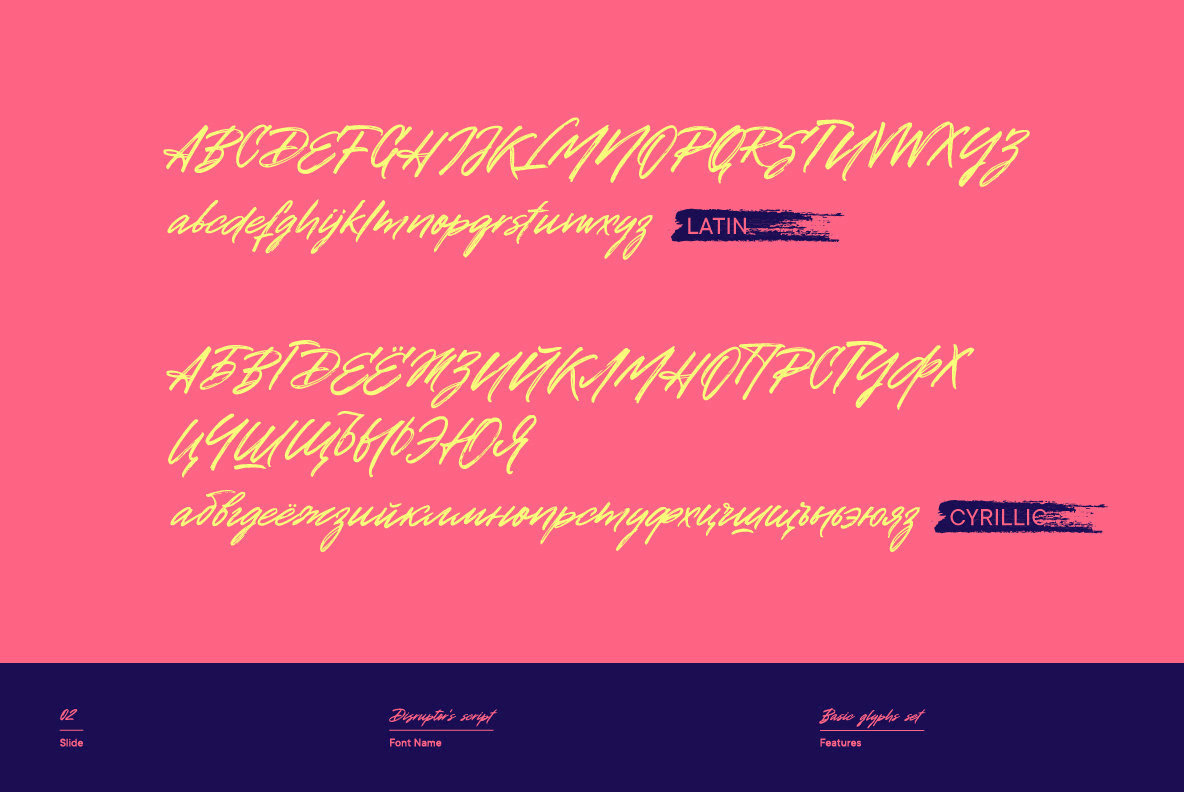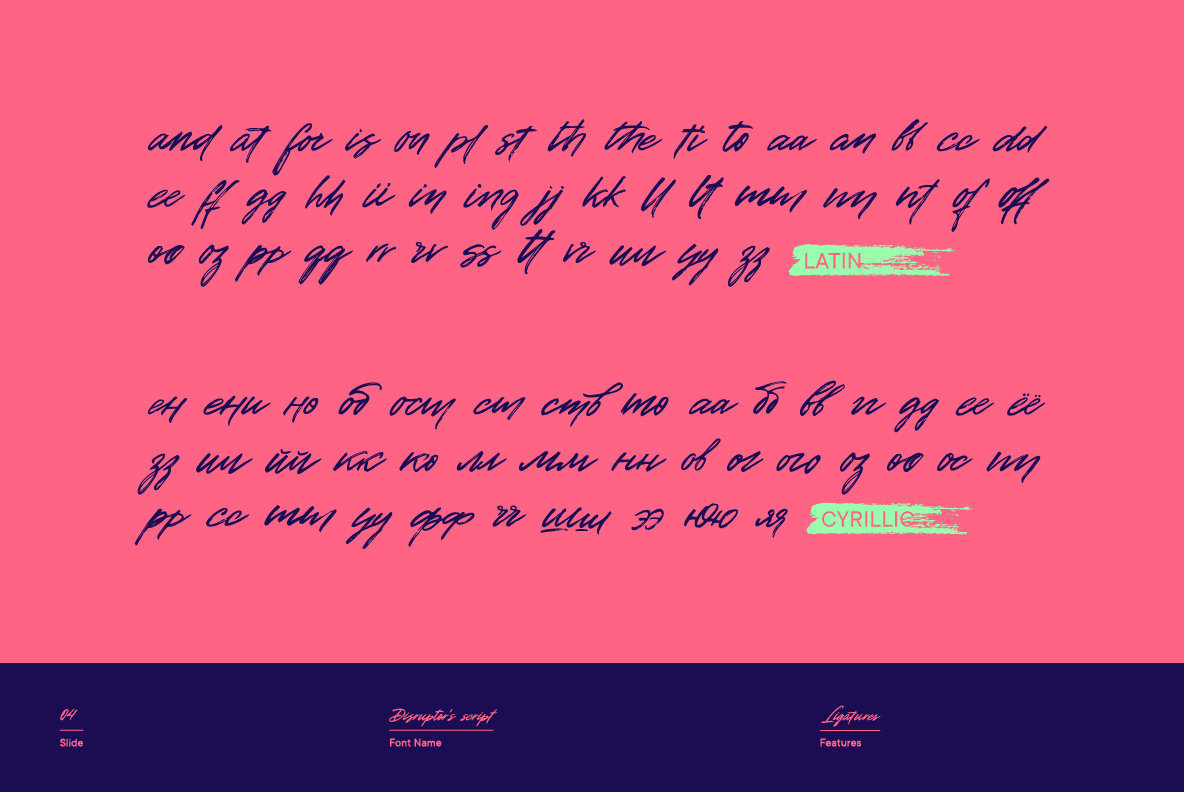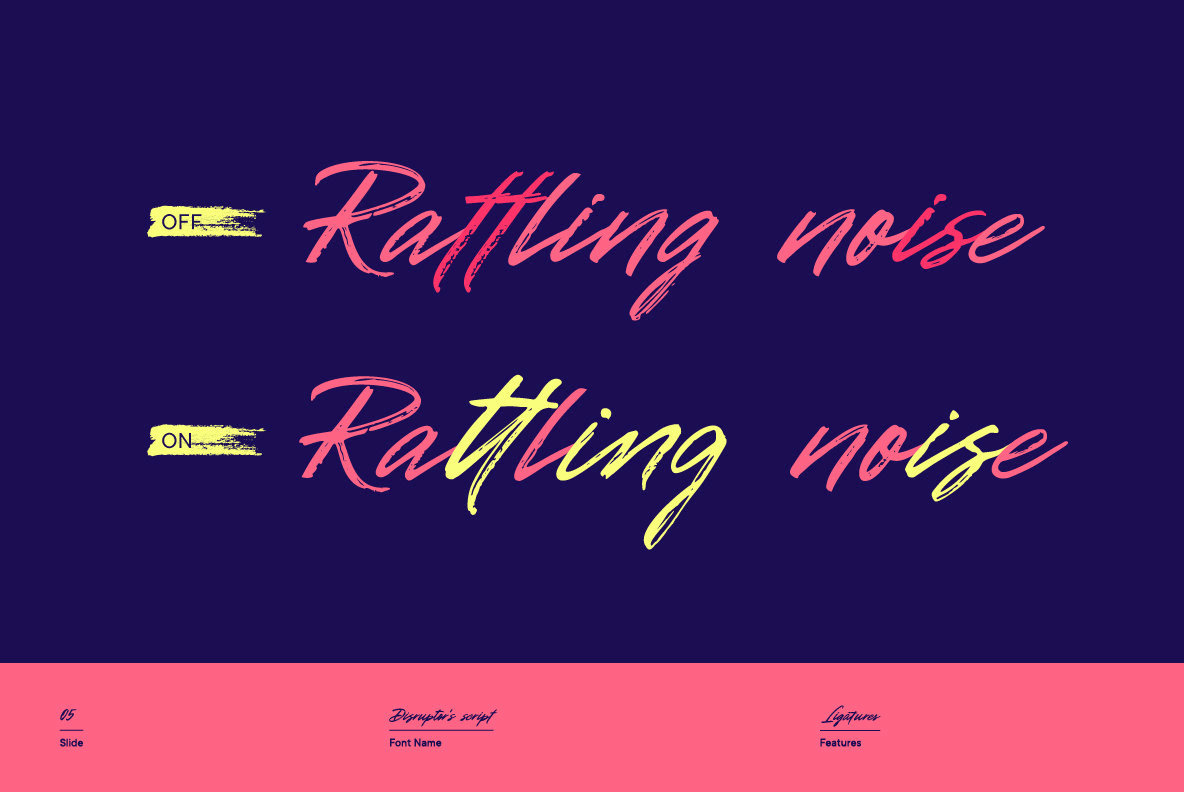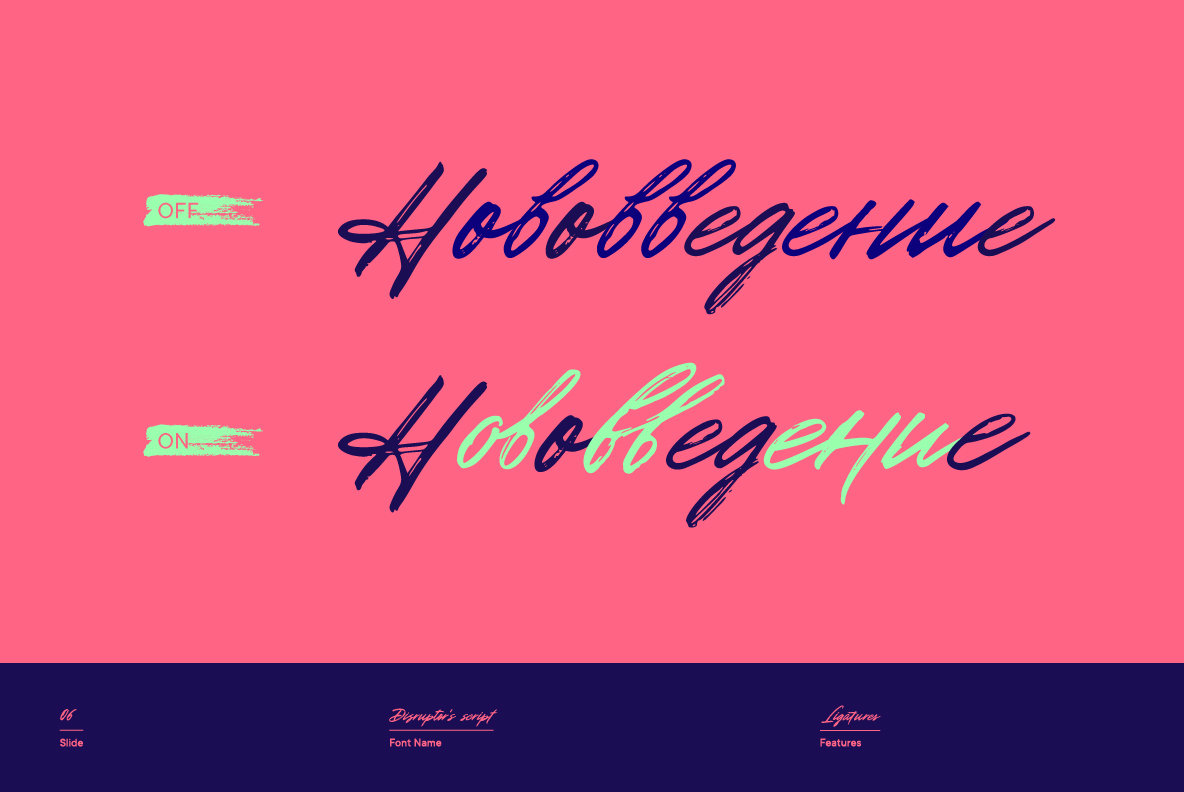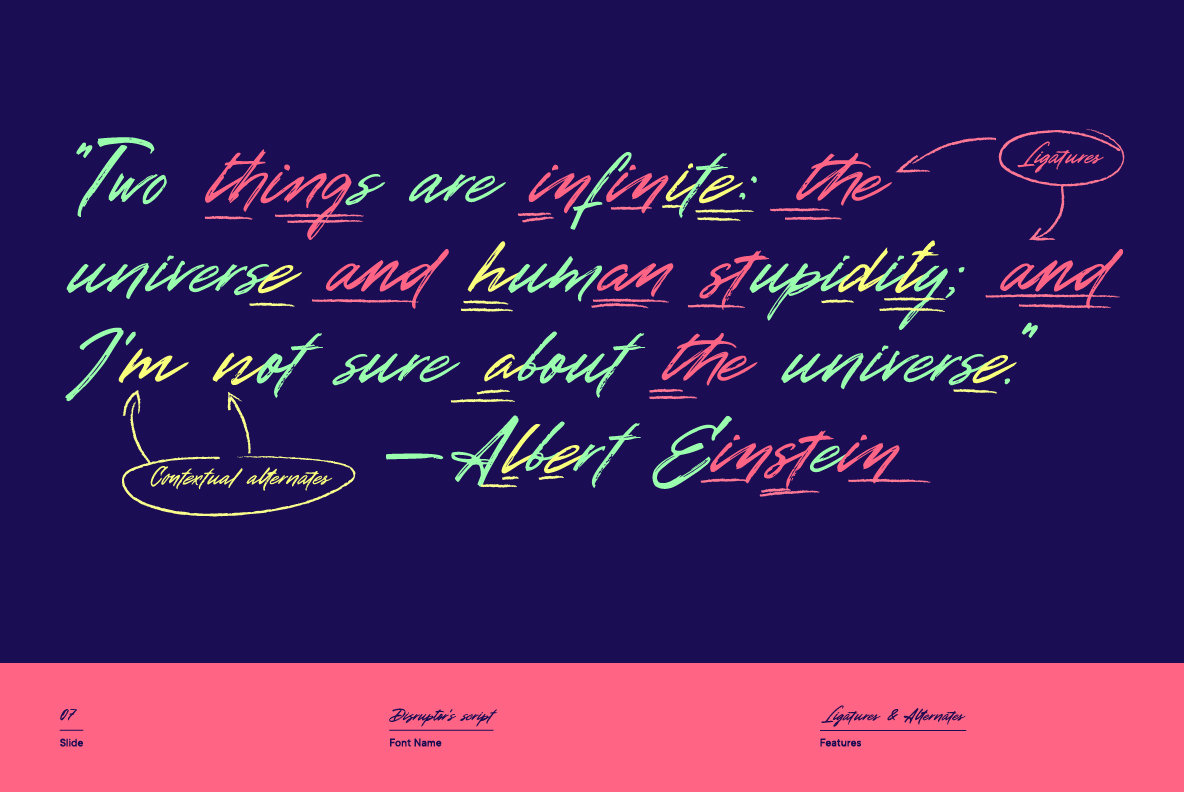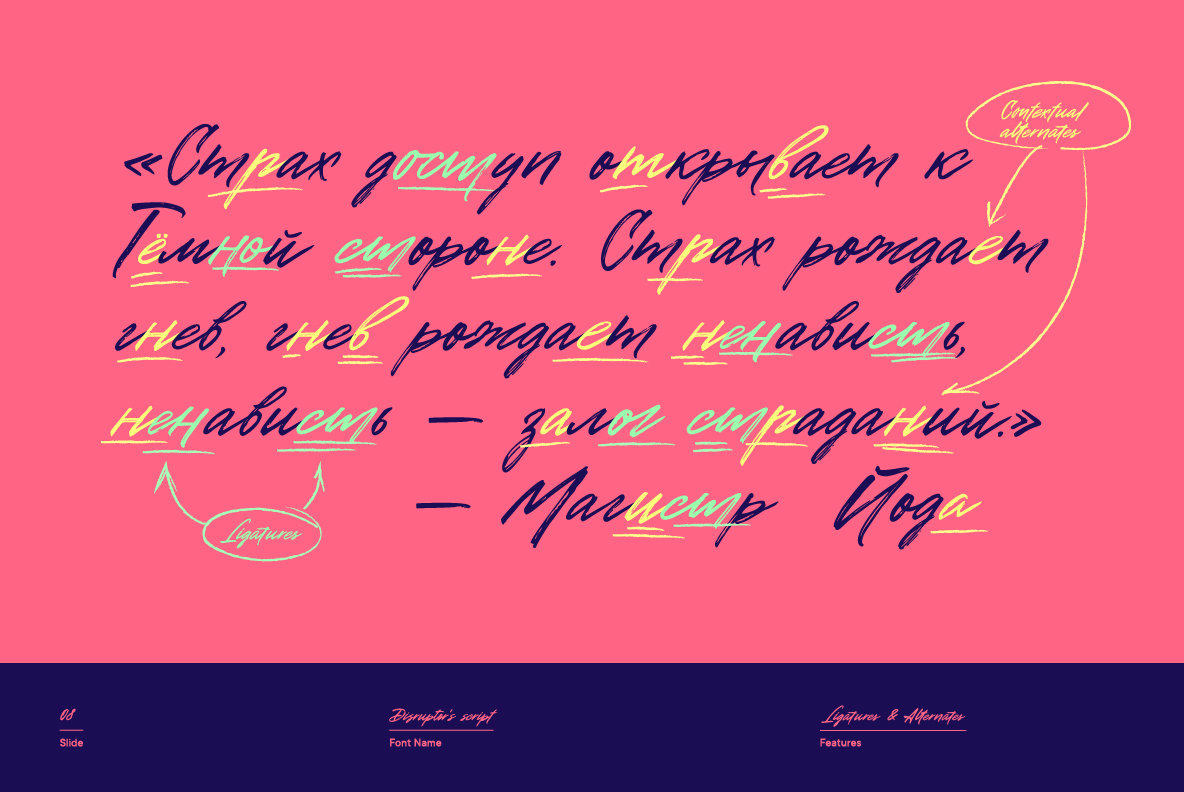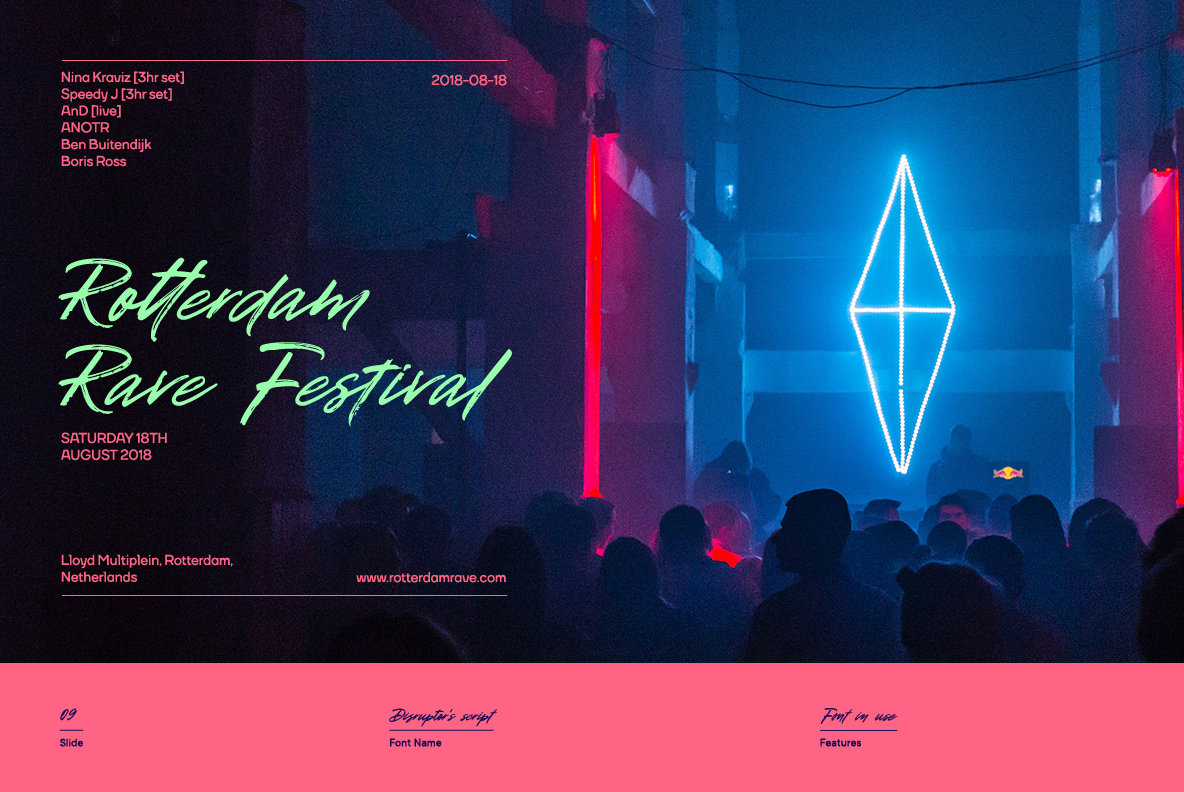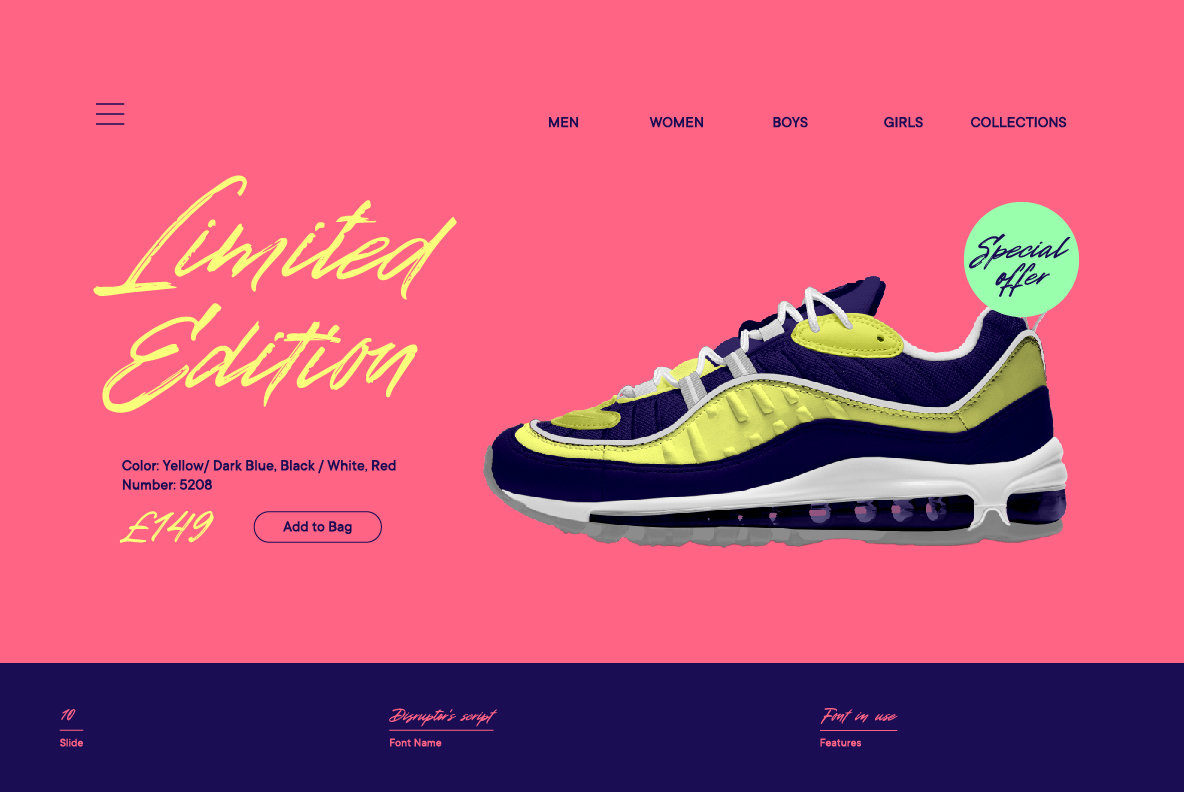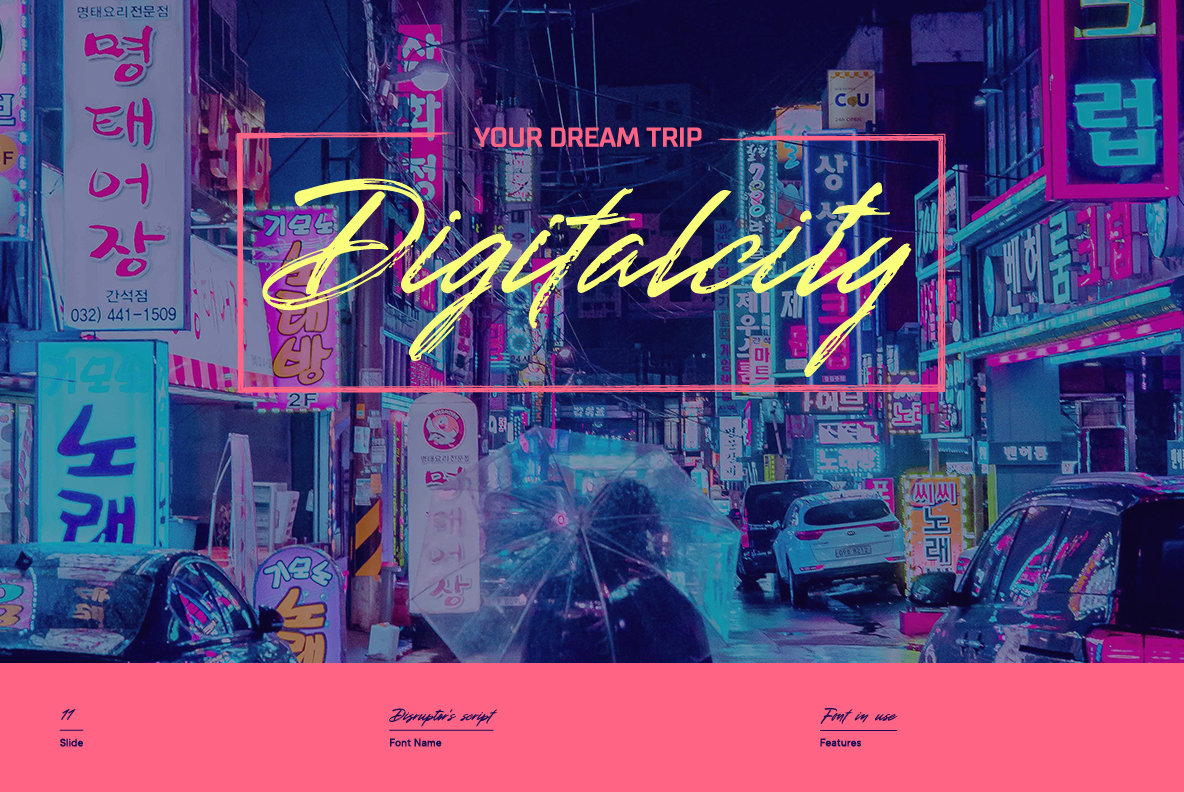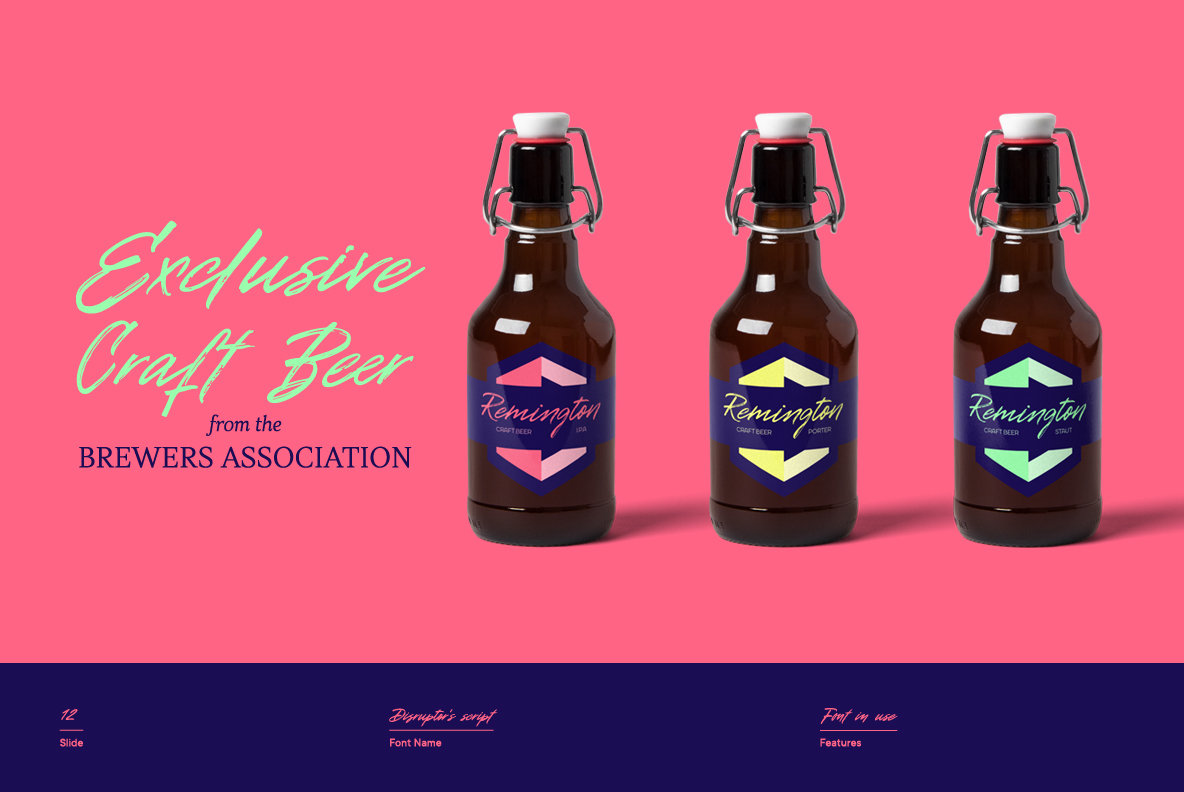
Disruptors Script Font
Disruptor’s Script is the alter ego of our previous project Gentlemen’s Script. Unlike the Gentlemen’s Script, the new font is an elegant rebel and defies traditions. The font is painted with a brush pen, which is especially noticeable in the characteristic shabbiness and different thicknesses of the strokes.
While the Gentlemen’s Script is an embodiment of a classic costume, dress shoes and an expensive watch, Disruptor’s Script is a fashionable suit, sneakers, an iWatch and a tattoo that peeks from under the shirt. The font retained the incline, speed and overall sense of dynamics inherent in Gentlemen’s Script, but got a bit more chaotic and unpredictable. This is especially noticeable in the newly added shabbiness, elongated extenders, a large number of contextual alternates and different ligatures.
For some high-frequency letters (10 for the Latin alphabet and 10 for the Cyrillic alphabet), we painted alternative versions that are substituted in the word instead of the standard characters when following our preceding certain groups of letters. In addition, in the Disruptor’s Script you can find functional ligatures, including some of the frequently occurring two- and three-letter combinations. All these solutions dilute the monotonous line of the set, add a bit of unpredictability to the font and a touch of chaos to inscriptions.